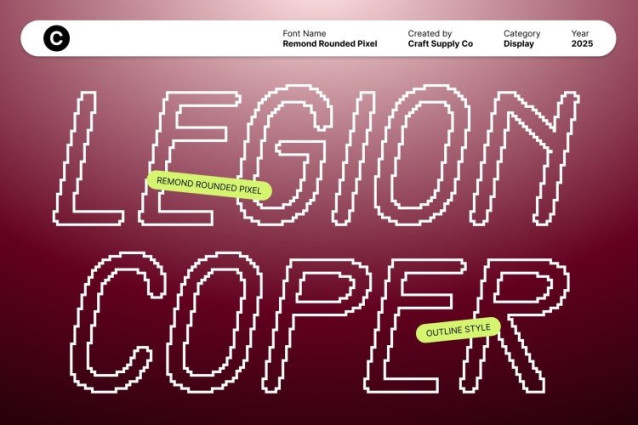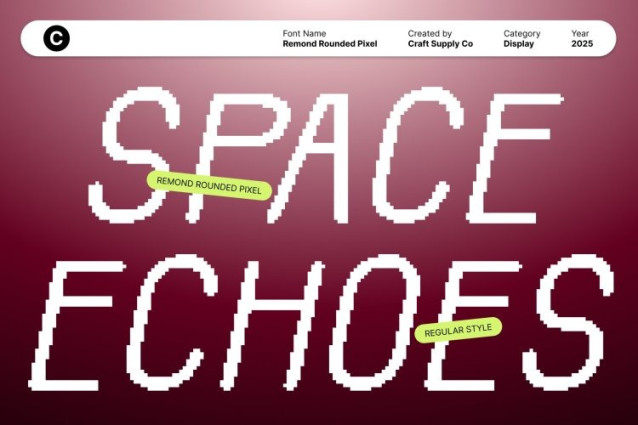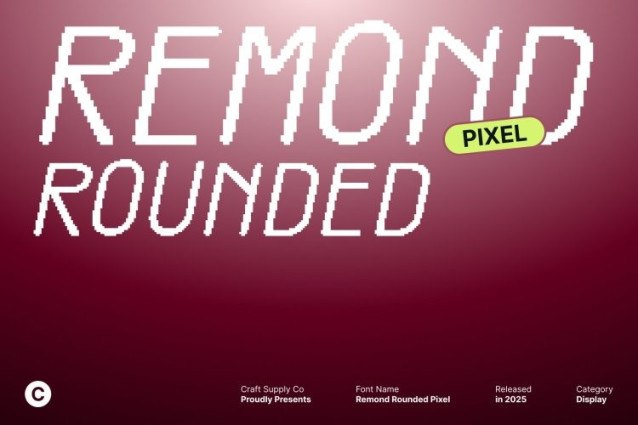
Remond Rounded Pixel Font
Remond Rounded Pixel Font This is a retro-inspired display font that combines the playful charm of classic pixel art with contemporary design sensibilities. Its rounded, approachable forms create a friendly and engaging aesthetic, making it ideal for designers looking to evoke nostalgia while embracing modern digital creativity.
Rounded Shapes for Friendly and Playful Expression
The soft, rounded letterforms of this font convey warmth, approachability, and charm. Its clear and balanced construction ensures readability while maintaining a playful retro vibe. Whether used for headlines, logos, or creative displays, the rounded design adds personality and visual appeal to any project.
Pixel Texture Adds Digital Flair and Nostalgic Energy
Enhanced with a pixel effect, Remond Rounded Pixel introduces a digital edge that reinforces its retro aesthetic. The pixelated detailing adds uniqueness and creativity, bridging the nostalgic feel of 8-bit design with modern digital applications. This makes the font perfect for contemporary branding, digital interfaces, and playful design concepts.
Perfect for Game-Inspired Designs, Digital Posters, and Fun Branding
This font excels in projects that thrive on creativity, fun, and retro digital charm. From gaming interfaces and posters to quirky branding and digital campaigns, its combination of rounded shapes, pixel texture, and nostalgic energy makes it a versatile, eye-catching, and modern display font.